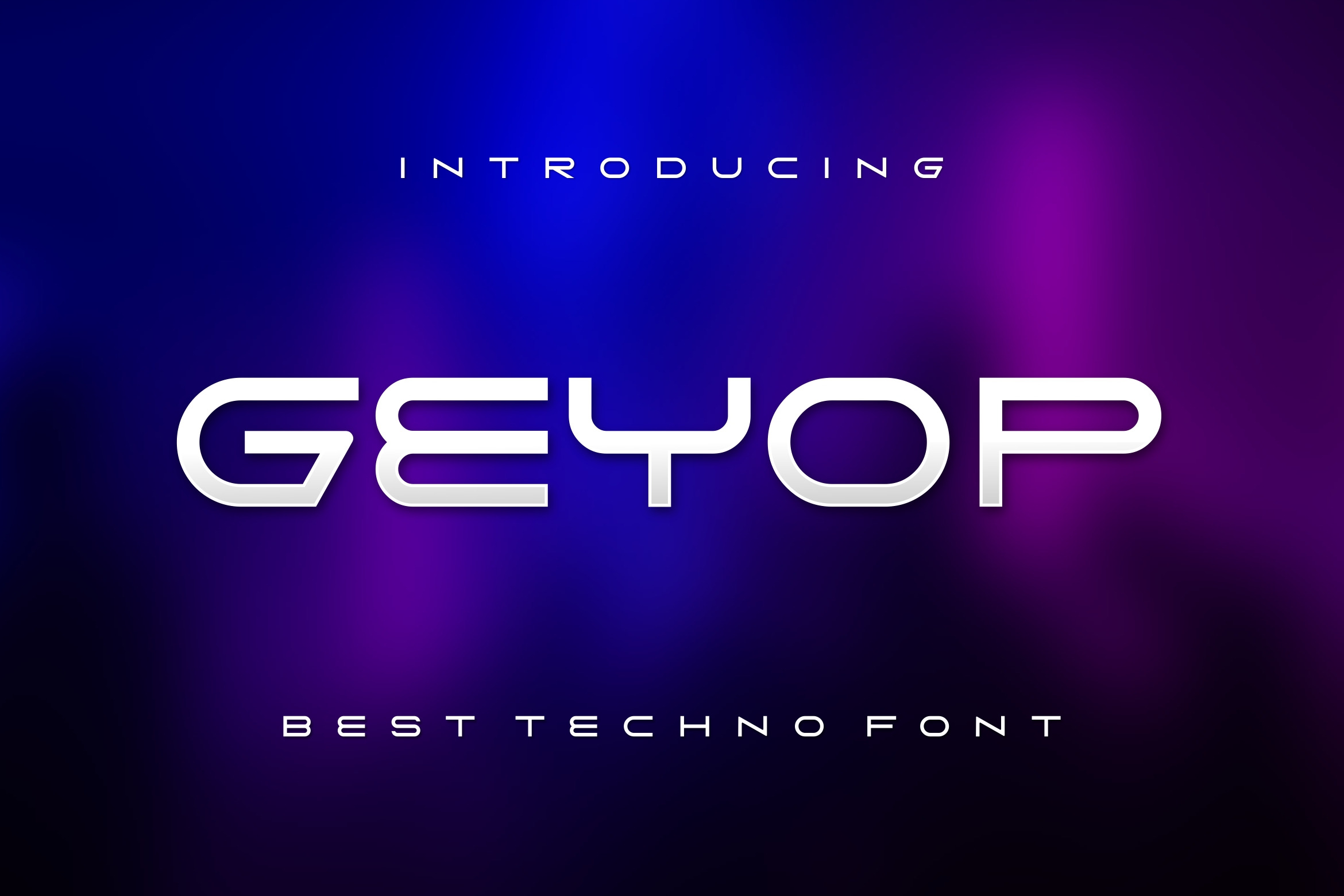
Geyop Techno Font
Introducing our new product Geyop - Modern Font
Geyop is a bold, modern display font with playful flair, ideal for attention-grabbing headlines, logos, and diverse design projects. Versatile and readable in both digital and print, Geyop adds a dynamic touch to your message.